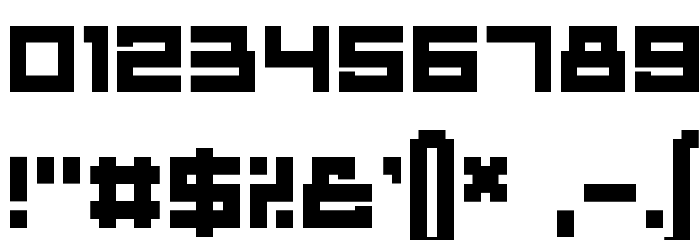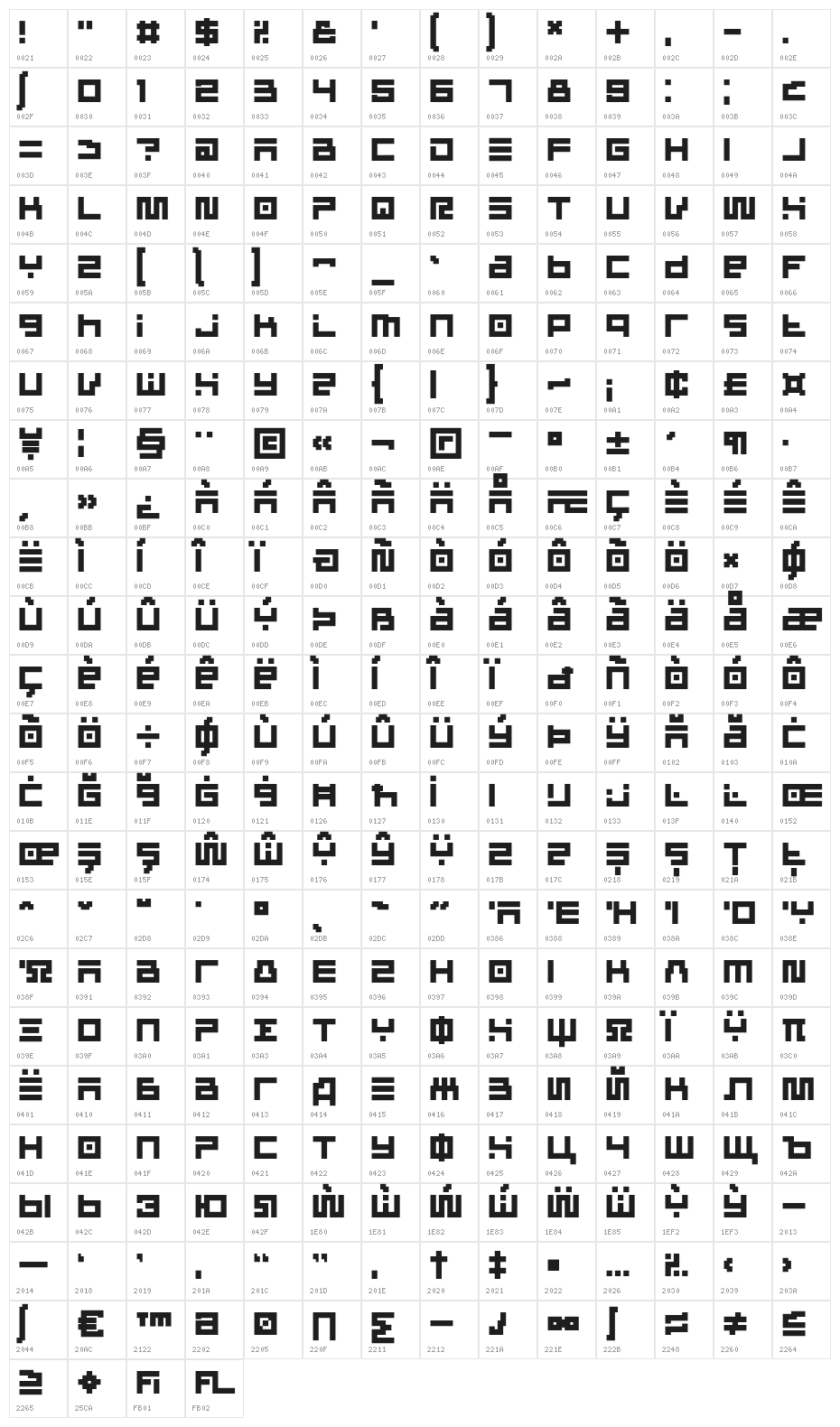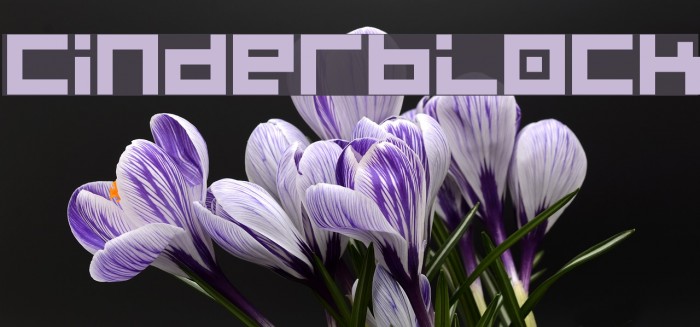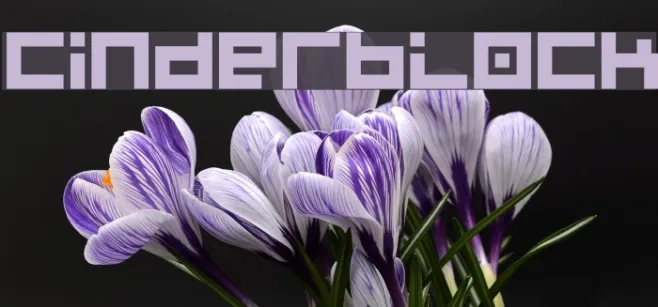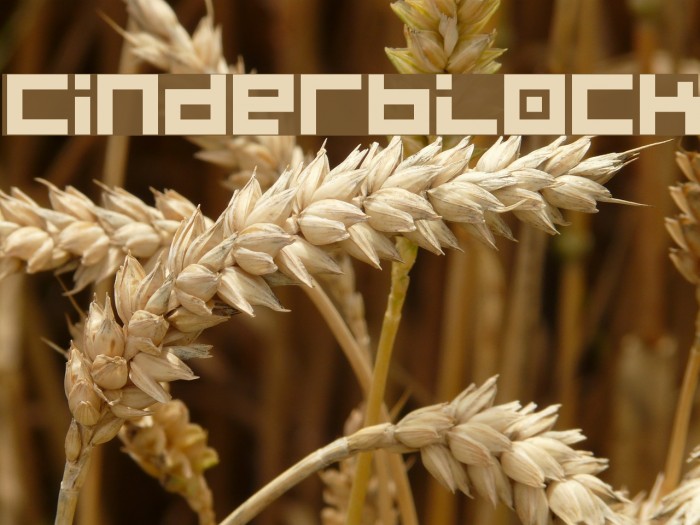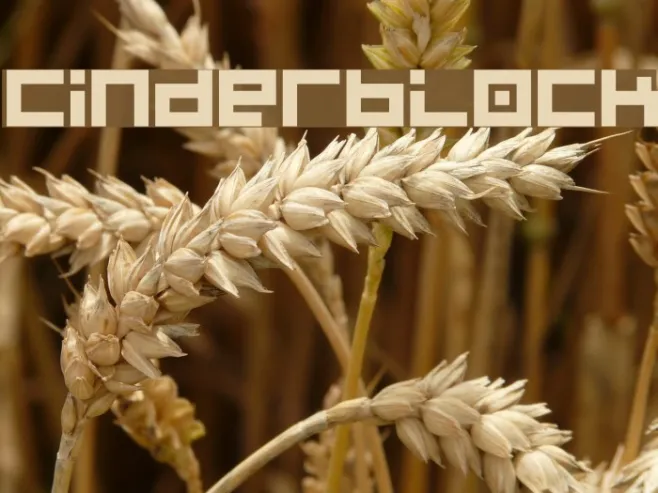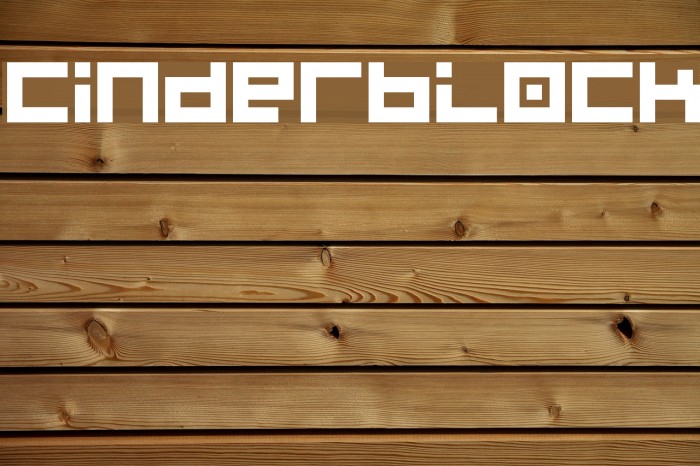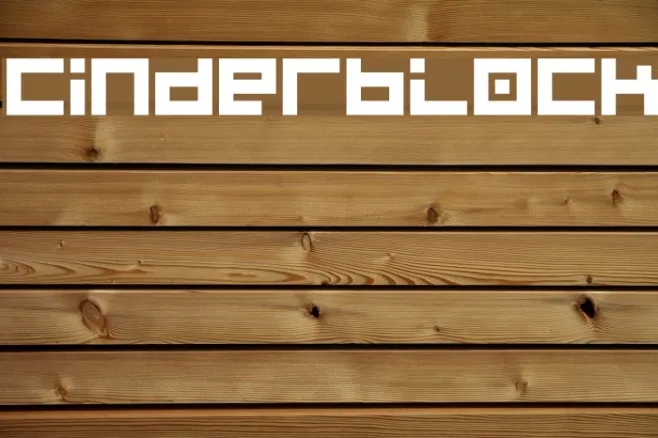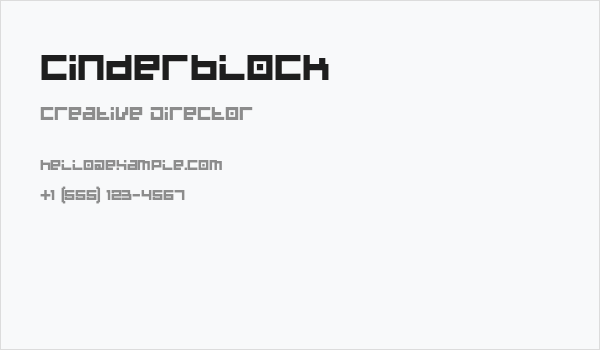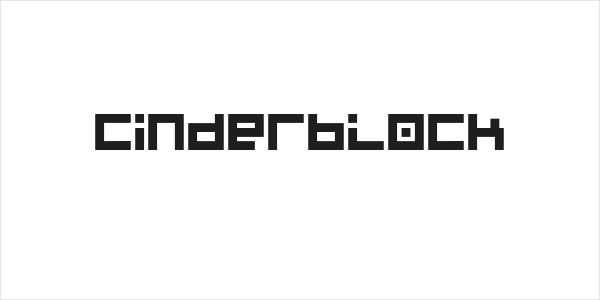
Cinderblock Font
Cinderblock Description
This font features a bold, geometric design with a blocky, pixelated appearance. Each character is constructed with sharp, angular lines and uniform thickness, giving it a distinctly digital and modern feel. The uppercase and lowercase letters maintain a consistent style, with minimal differentiation between them, emphasizing the font's uniformity. Numbers and special characters follow the same design principles, ensuring a cohesive look across all glyphs. The font's structure is reminiscent of early computer graphics and video game aesthetics, making it ideal for projects that aim to evoke a sense of nostalgia or technological themes.
| Proposed Projects | Ideal for video game design, tech-themed branding, digital art projects, and retro-style posters. |